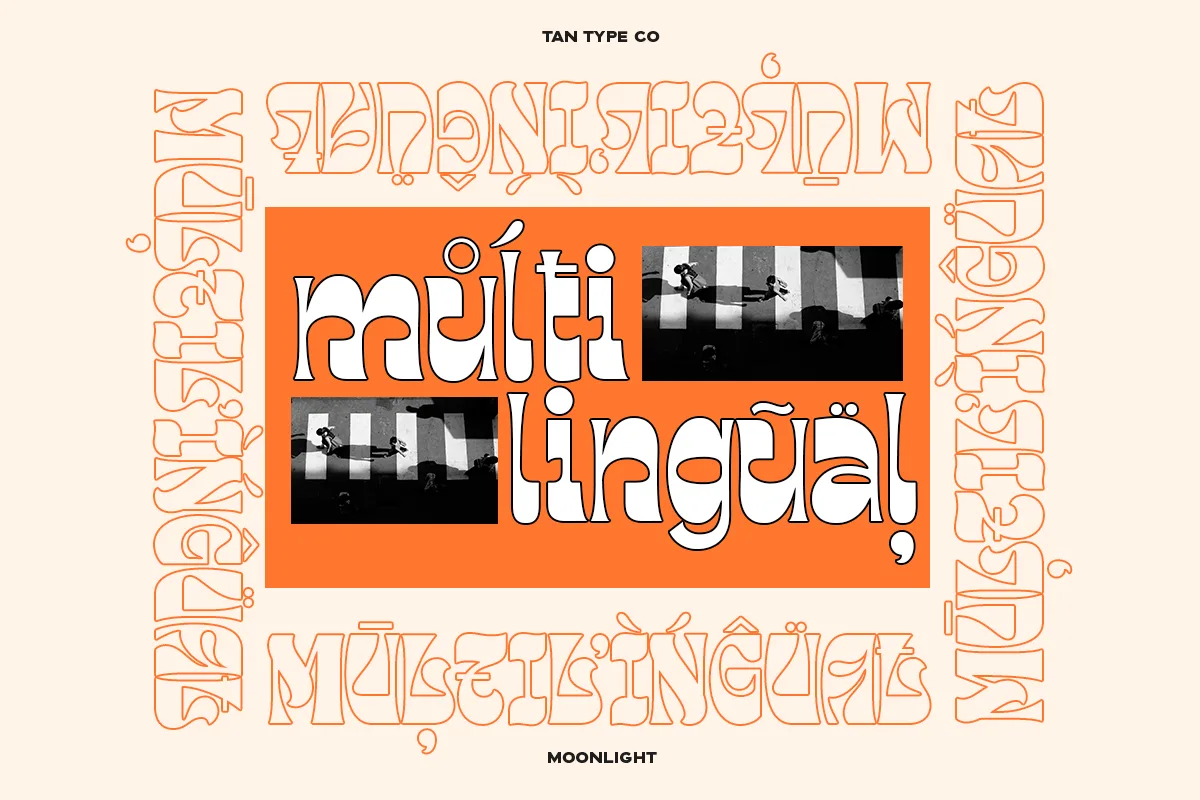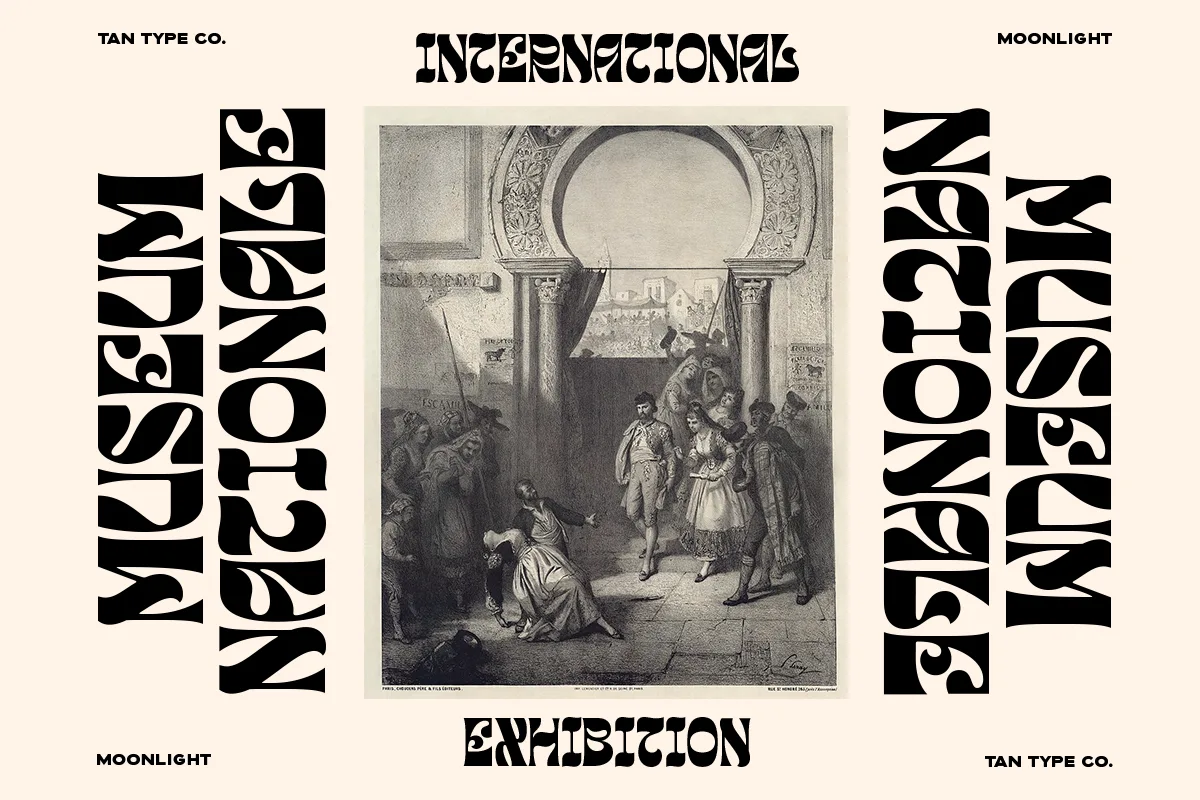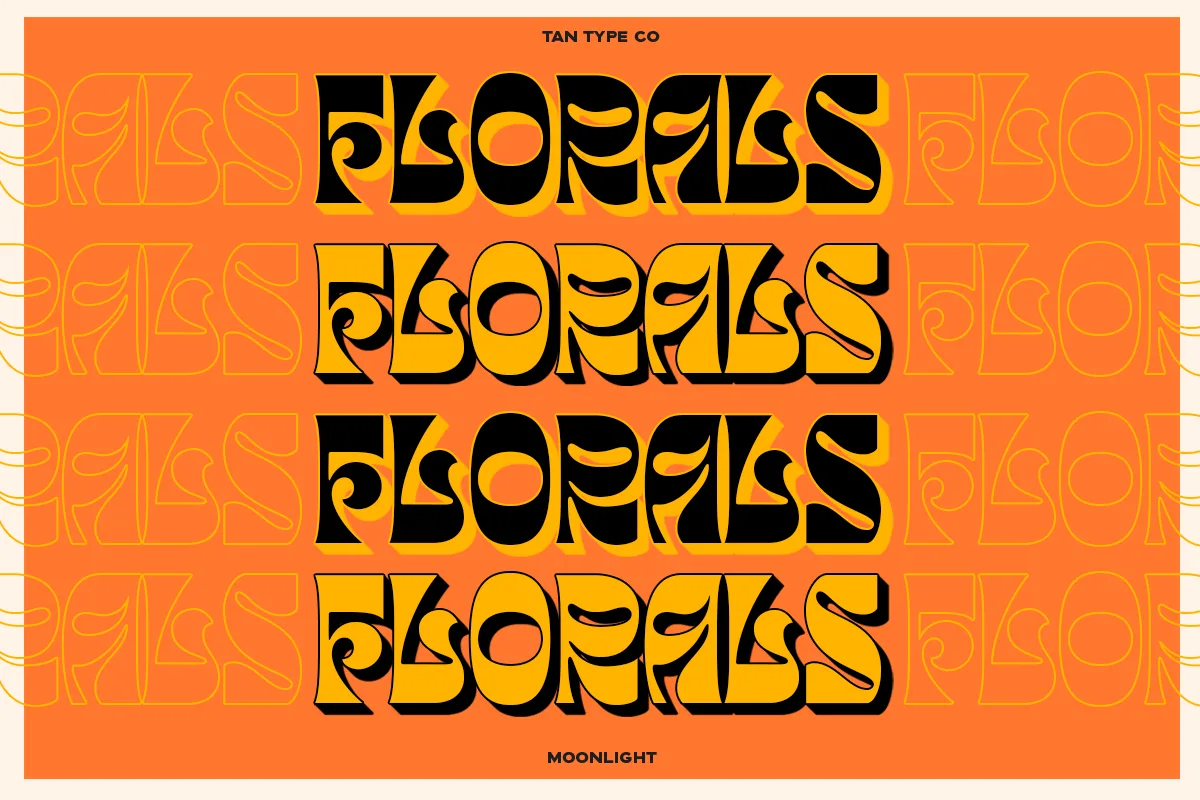
Tan Moonlight is a display typeface. It’s characterized by its groovy and funky rhythm, evoking a 70s vibe. It’s perfect for creating eye-catching headlines, posters, and other designs that need a retro touch.